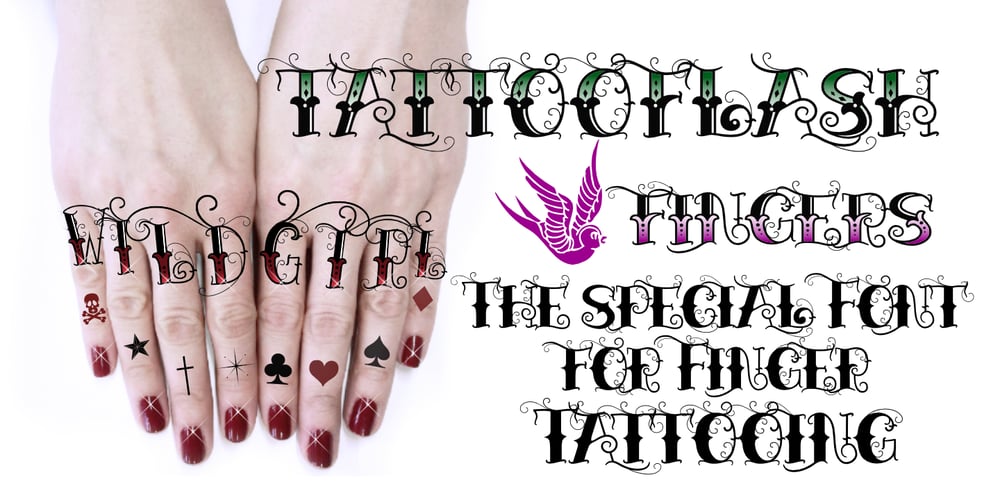
Tattooflash Fingers Font Family was designed by Otto Maurer and published by Otto Maurer. Tattooflash Fingers contains 13 styles and family package options. Tattooflash Fingers is a special Font for Finger-Tattooing. The Glyphs come in 3 Sizes for short fingers, normal fingers and long fingers. The Font is made for the little Space on a Human Finger. You can make your own Tattooflash! To Color your Tattooflash take the PART version!. After Install the Fonts you can use the part-version in Photoshop or better in Affinity Photo or Affinity Designer to color your Flash. Use the Swashes to make your tattoo flash better, make your own TattooDesign! You are a Tattooartist? This Fonts are made for YOU!